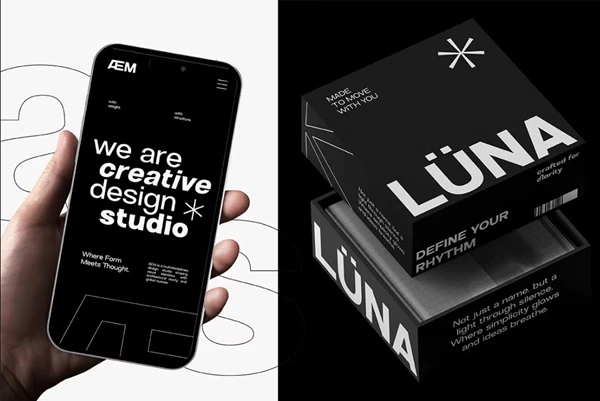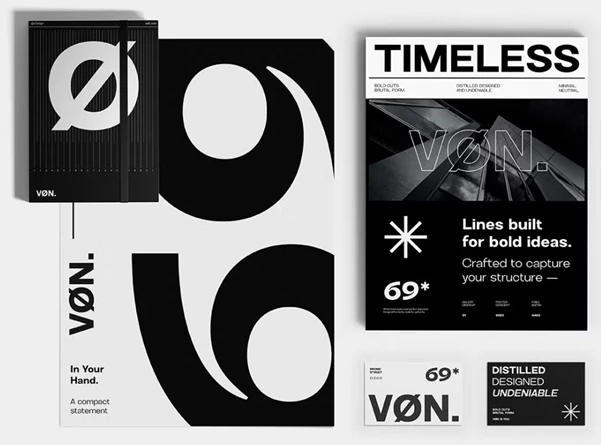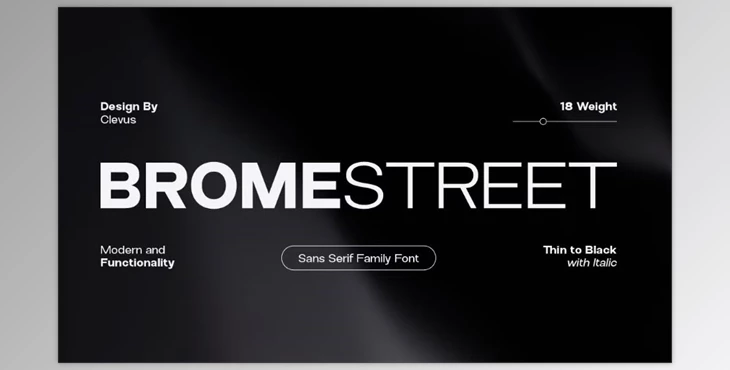
Brome Street Family Condensed Font:
The Brome Street Family Condensed Font is a contemporary interpretation of a classic grotesque font. This condensed bold font is the ideal typeface for impactful logos, inspiring quotes, and blog post headlines designed to attract attention. Additionally, this font family contains 18 weights and 20 alternative ligatures, providing both elegance and versatility for projects ranging from restaurants to branded wedding invitations.
Some great features of Brome Street Family Condensed Font:
- 18 weights
- Letters/numbers/symbols/punctuation
- Includes alternates and ligatures
- Multilingual support (Danish, English, French, German, Spanish, etc.)